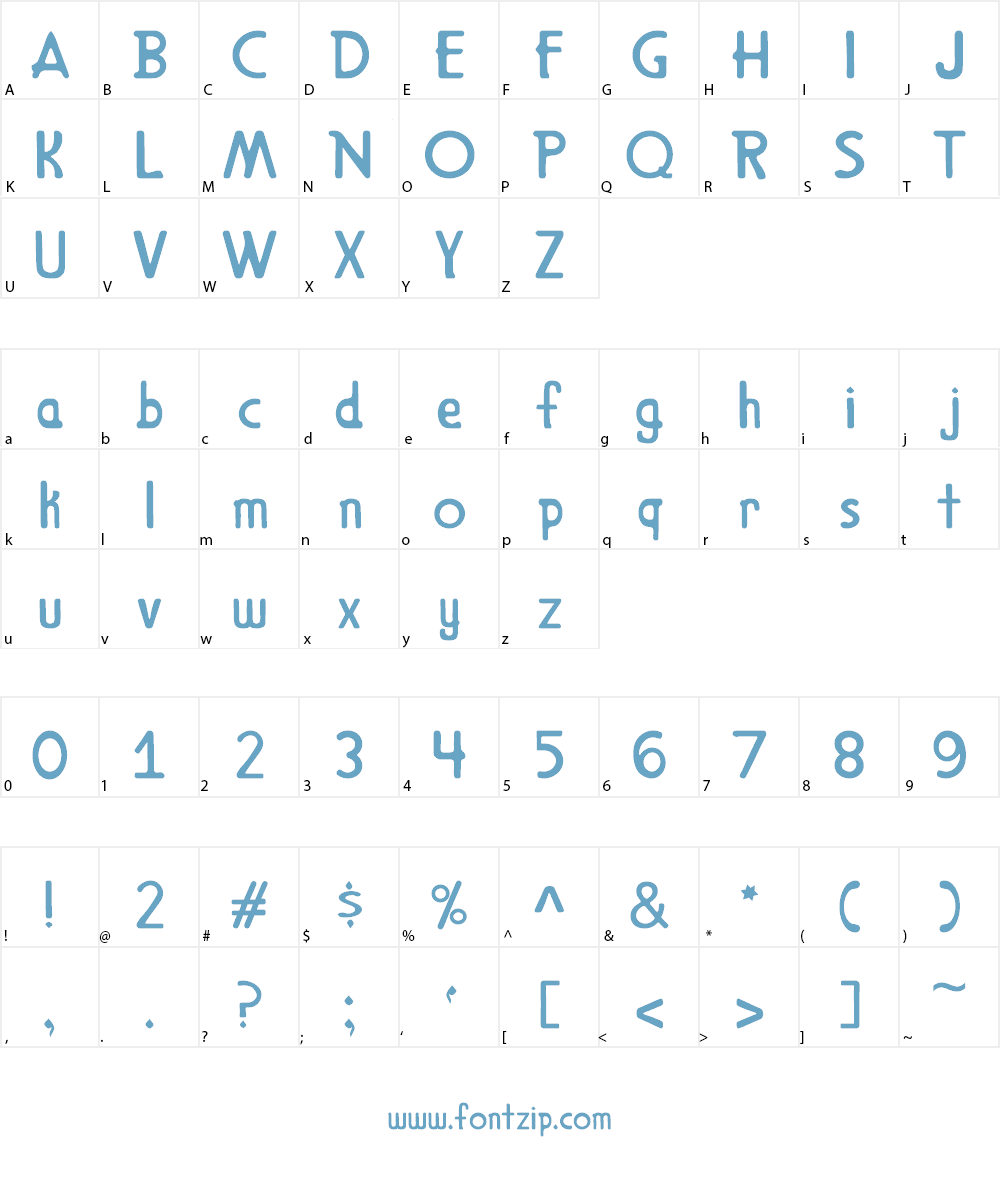
“Mount Retro” has been constructed as a homage to the fonts that were created by the very talented, and often unknown, artists of the early years of New Zealand tourism advertising.
These early artists were pioneers not only for creating tourism artwork, but also in the art of screen printing. The fonts that were generated through this process were unique, and differed slightly from poster to poster, giving the artwork a hint of the individuality of the artist behind the typography.
They captured a sense of the beauty of the fledgling country of New Zealand, and also of the Kiwi ingenuity within it. The artists were able to express what they saw with these posters, capturing a time and place that will never come again, and is part of the countries singular history.
Sadly for us as designers, most of these fonts have been lost to time and live only in the posters that they adorn and in the memories of the declining few of that generation.
The purpose behind “Mount Retro” is to recreate the feeling of a by-gone time and place, and offer something that is both retro, as well as usable, today as a display font.